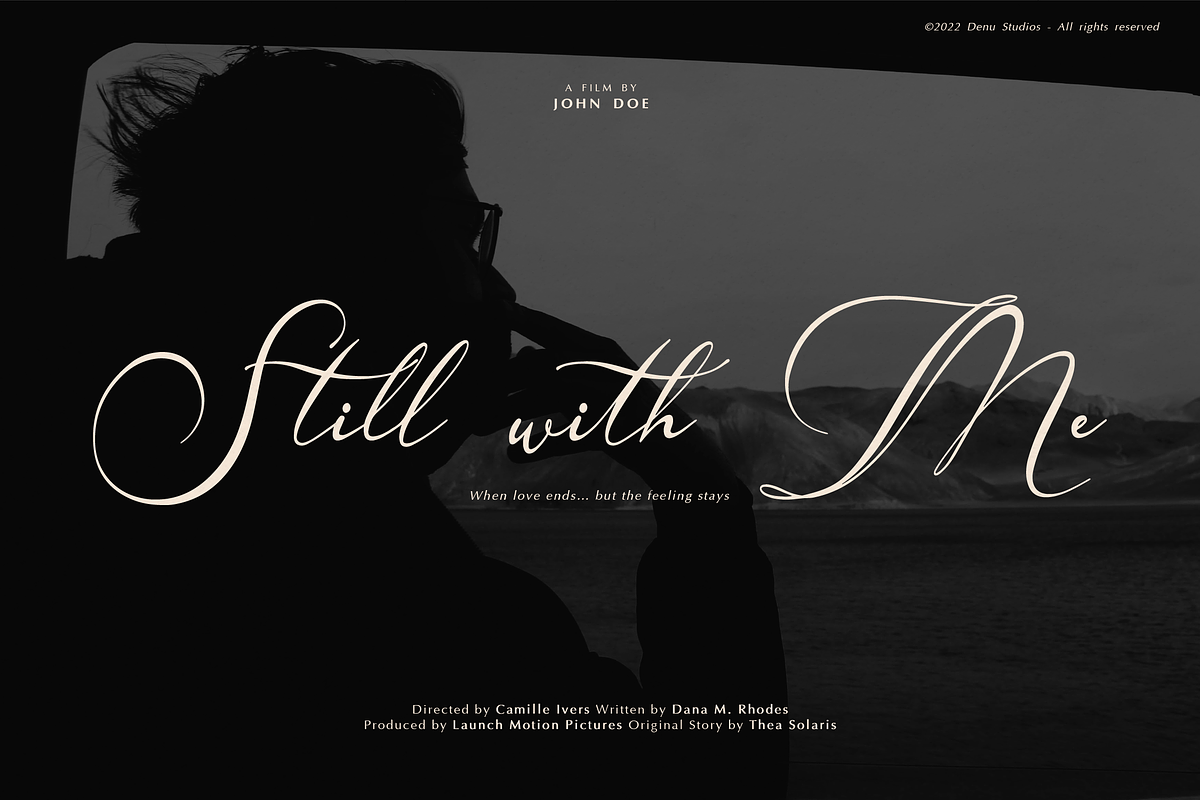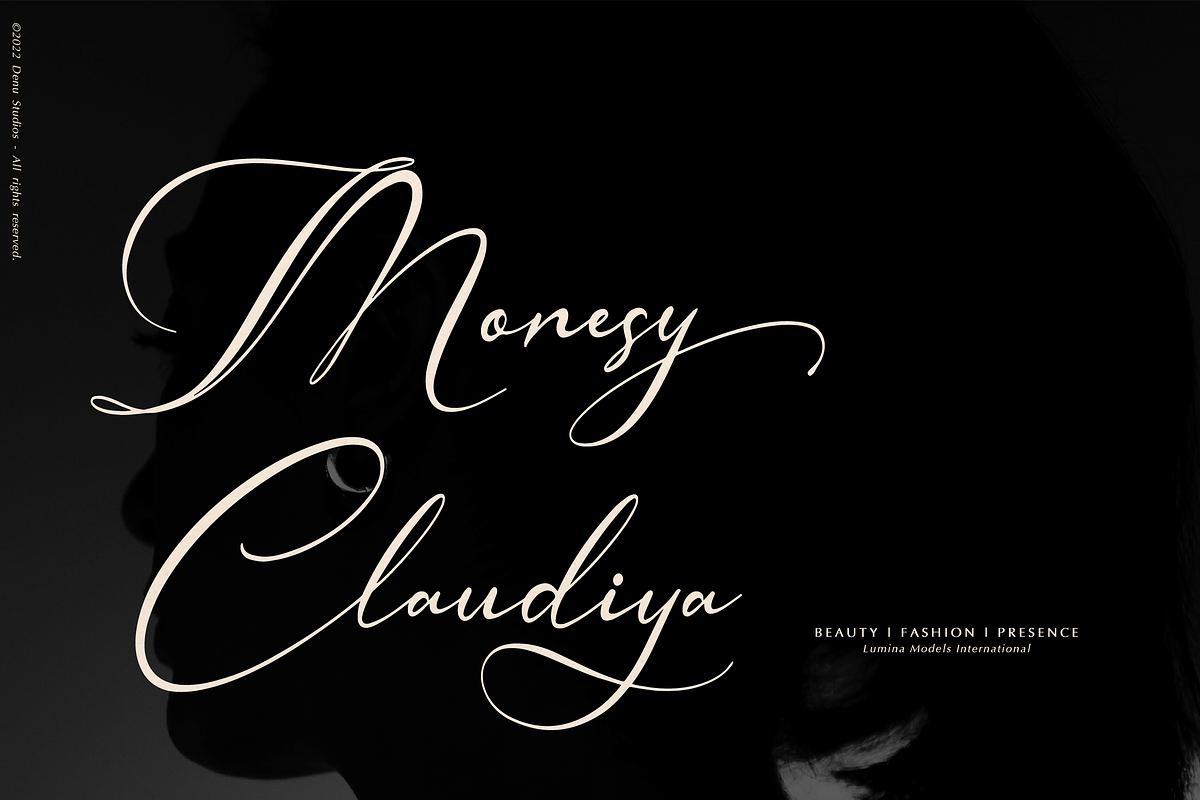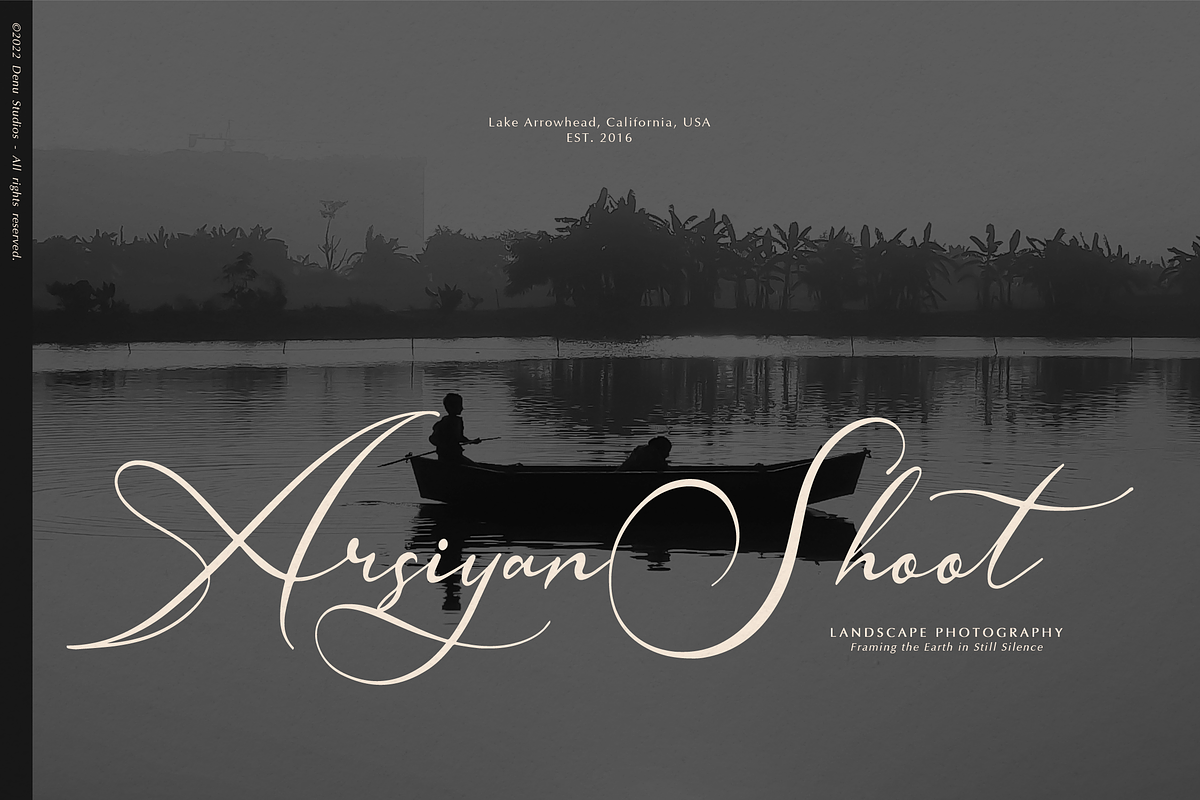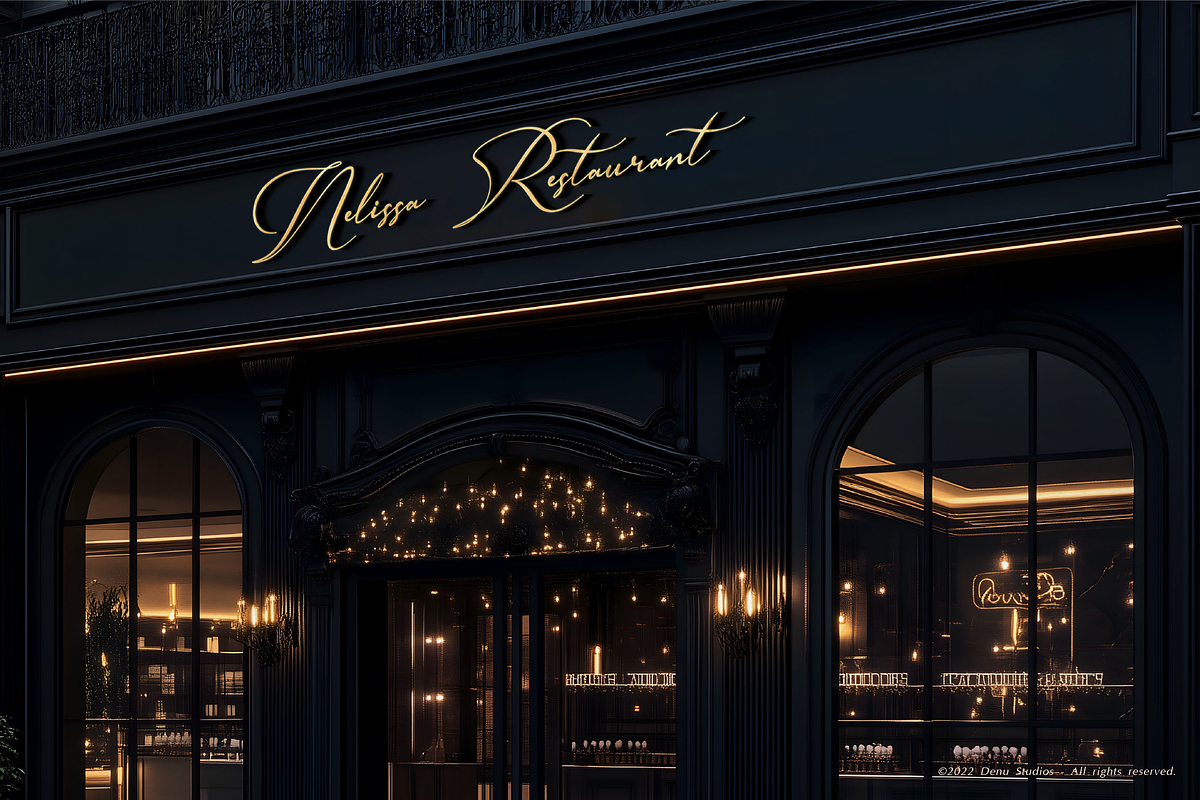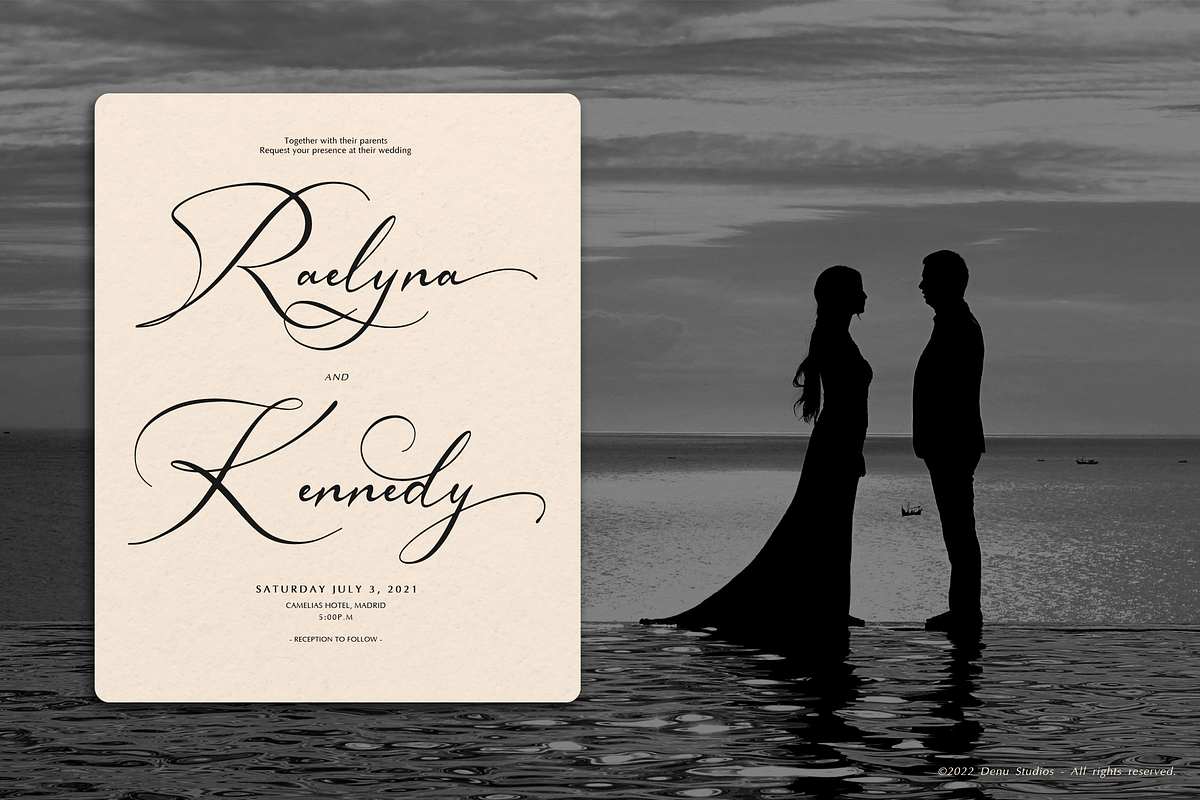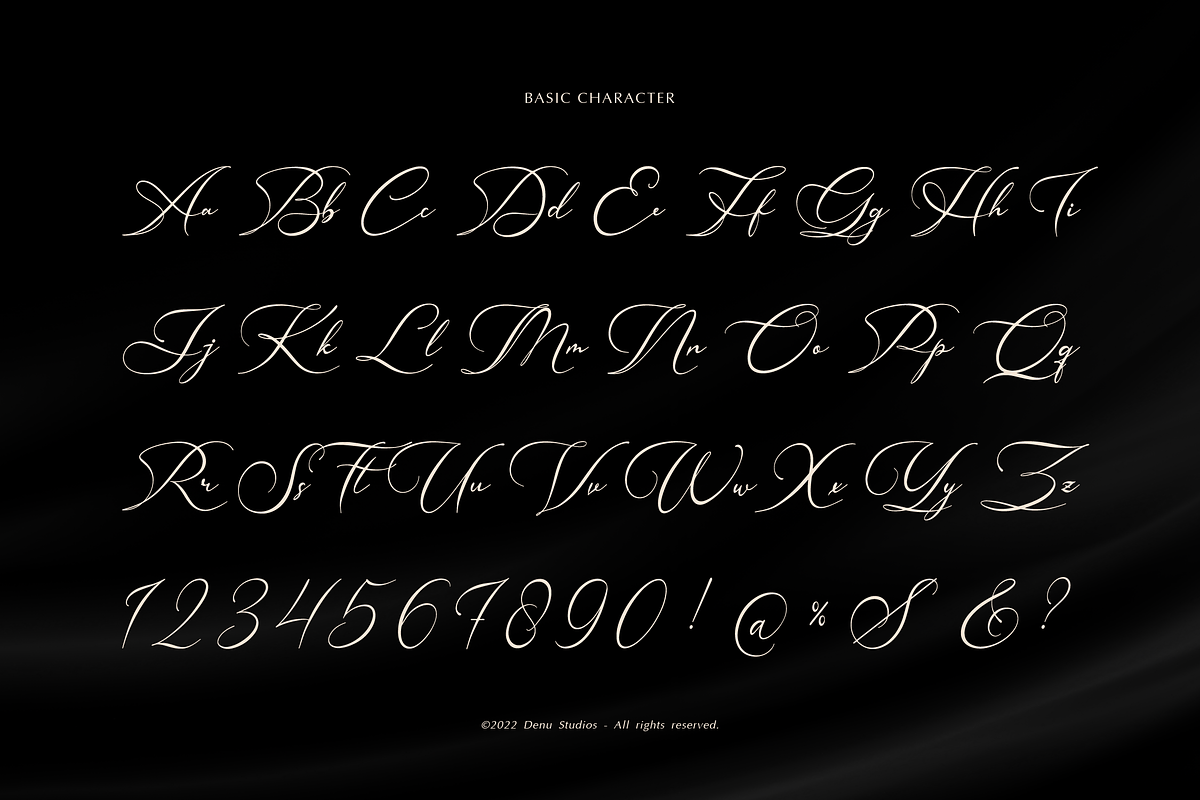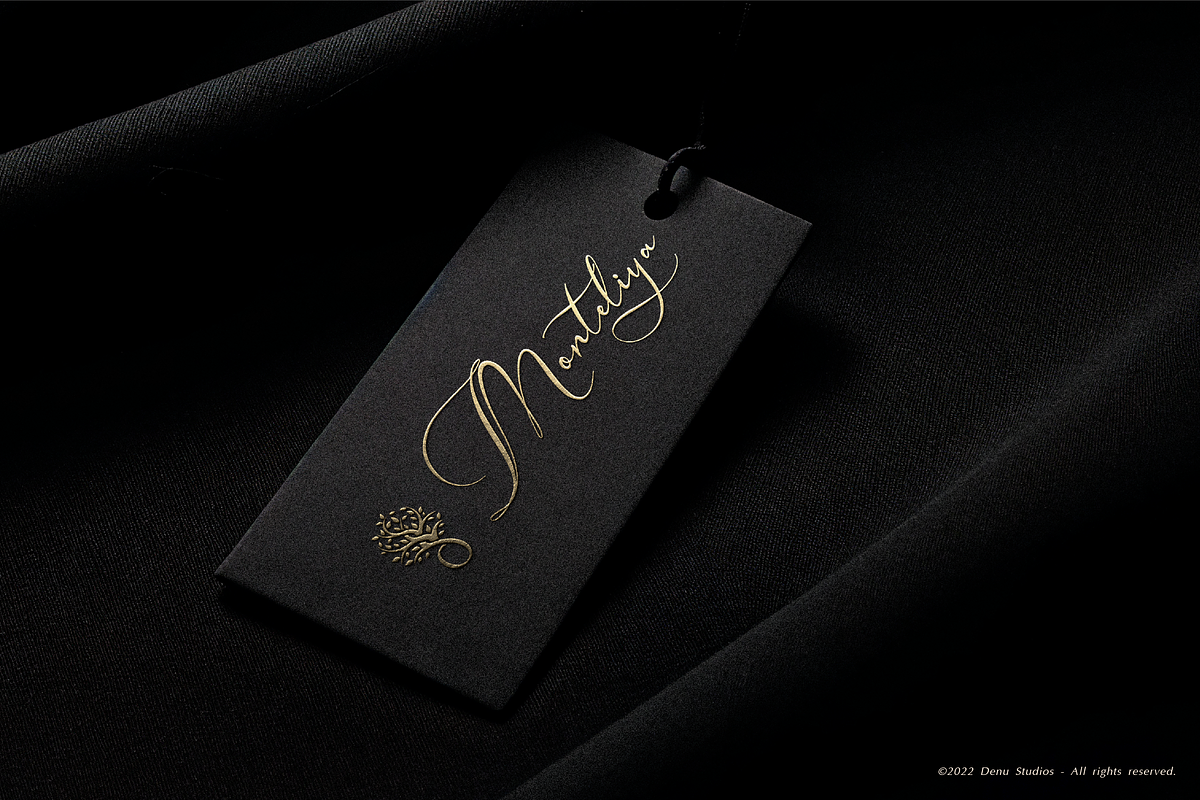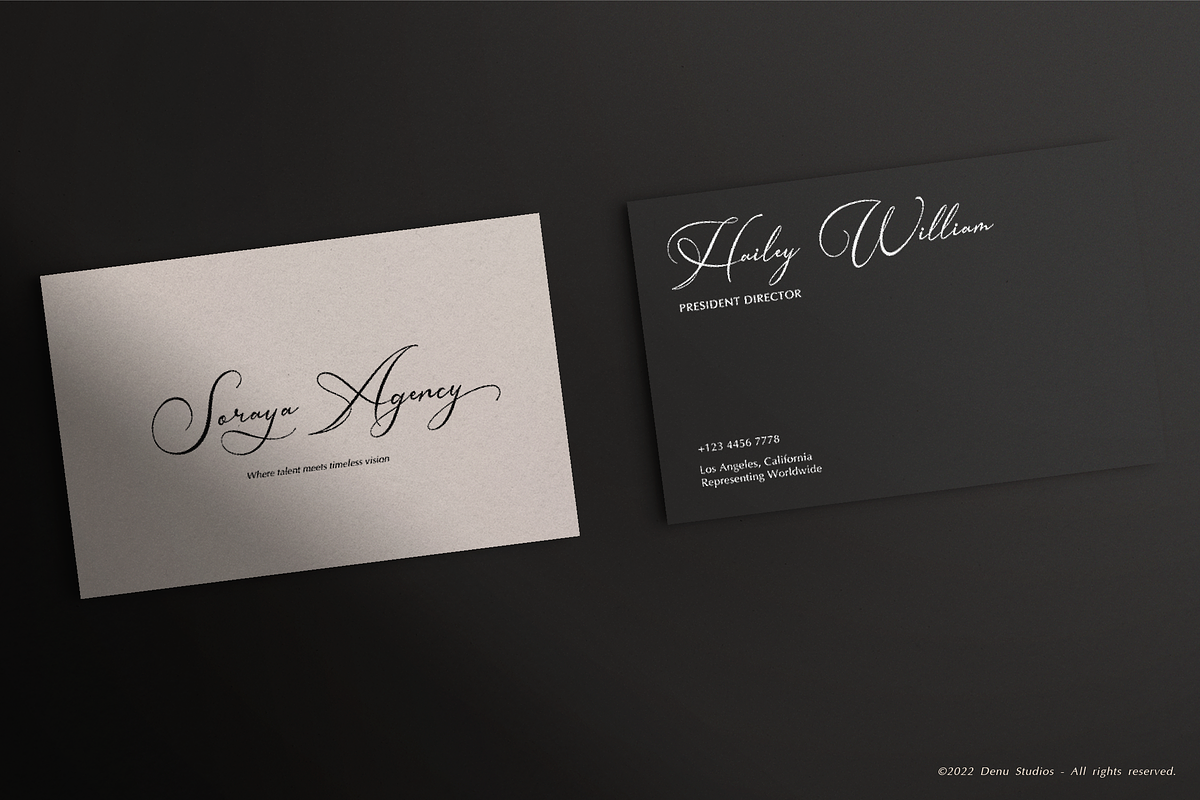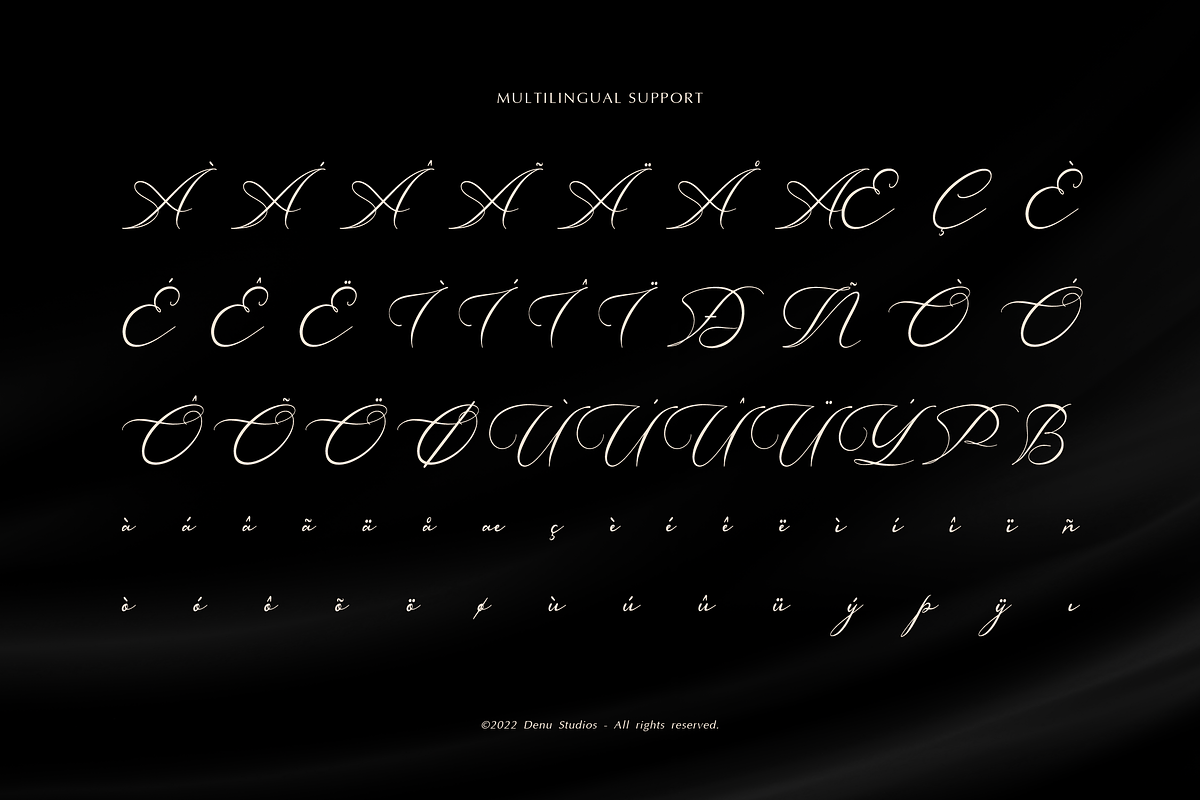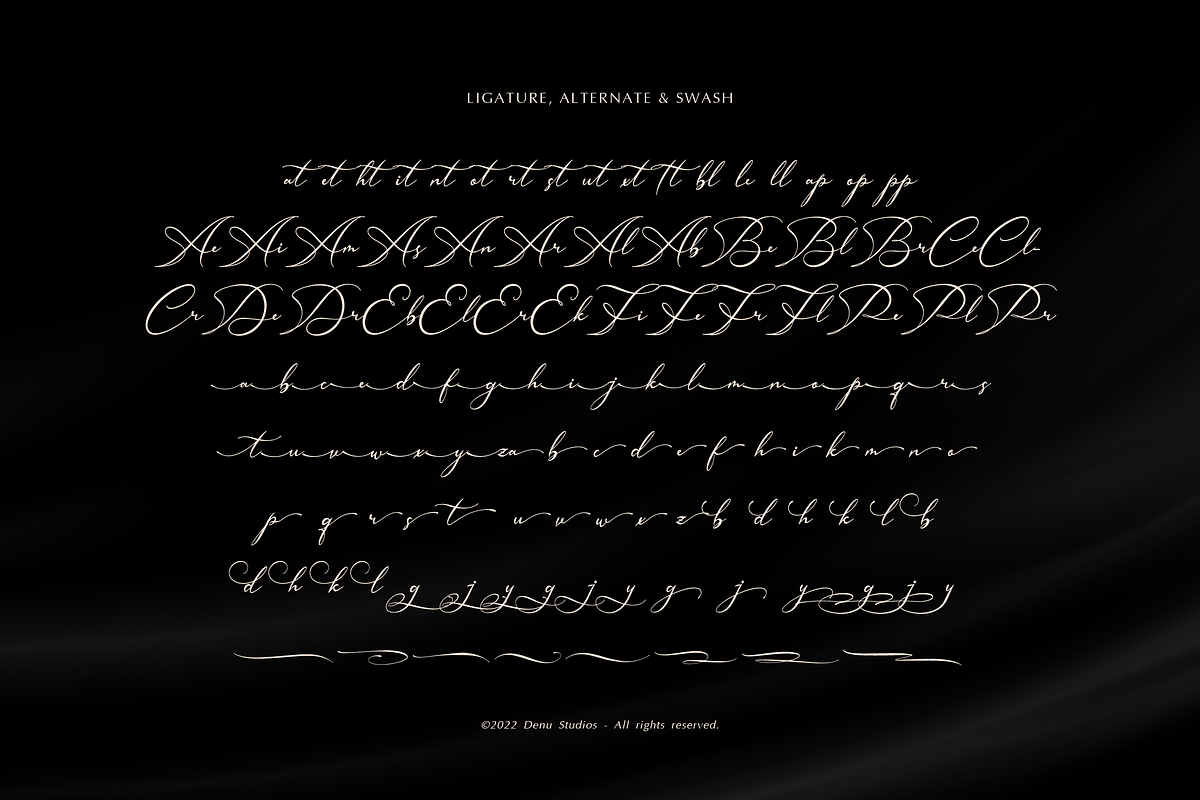
Hamedory Dumbless Modern Calligraphy
Hamedory Dumbless | Modern Calligraphy, from Denustudios, suitable for any projects such as: logos, branding projects, homeware designs, product packaging, mugs, quotes, posters, shopping bags, t-shirts, book covers, name card, invitation cards, greeting cards, label, photography, watermark, special events, and all your other lovely projects that need a Modern Calligraphy taste.